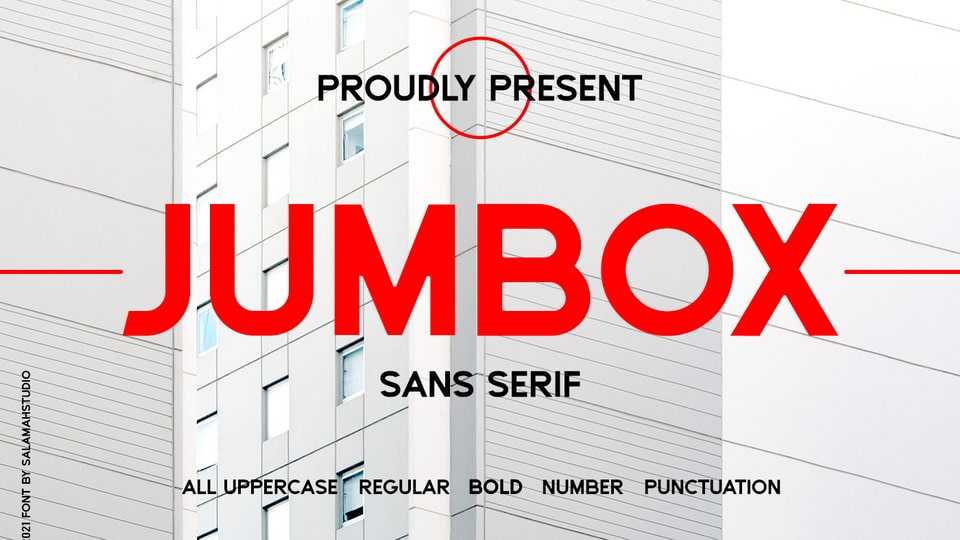
Download Jumbox font, a modern geometric sans serif typeface. With bold style, this font is perfect for logos, posters, product packaging, product designs, branding projects,